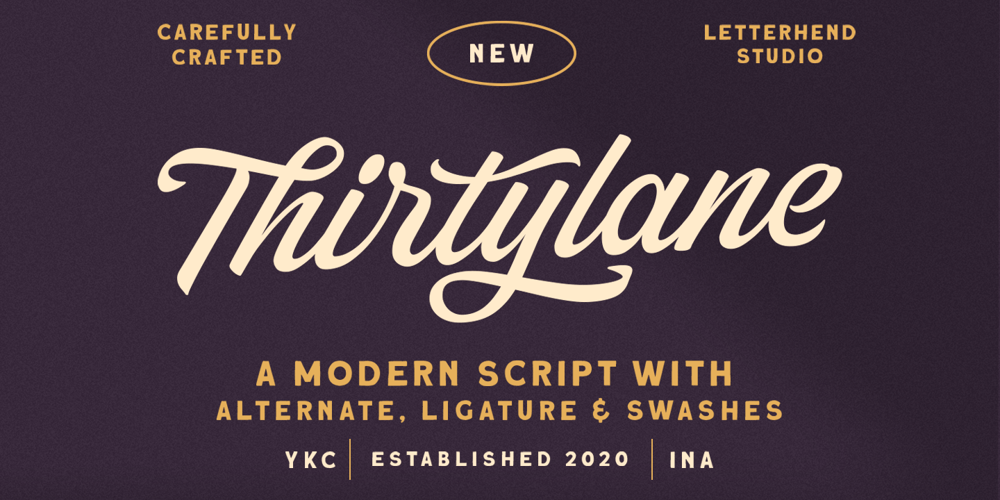
Thirtylane Script Font Family was designed by Hendry Juanda and published by Letterhend. Thirtylane Script contains 1 styles and family package options. Introducing, Thirtylane – a bold script which is purposely made for logotype. This type of font perfectly made to be applied especially in logo, and the other various formal forms such as invitations, labels, logos, magazines, books, greeting / wedding cards, packaging, fashion, make up, stationery, novels, labels or any type of advertising purpose.Features : uppercase & lowercase numbers and punctuation multilingual alternates and ligatures PUA encoded We highly recommend using a program that supports OpenType features and Glyphs panels like many of Adobe apps and Corel Draw, so you can see and access all Glyph variations.